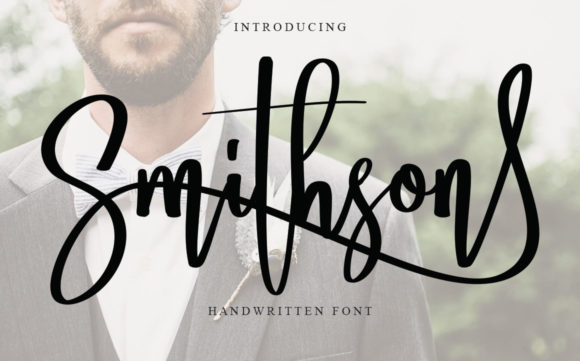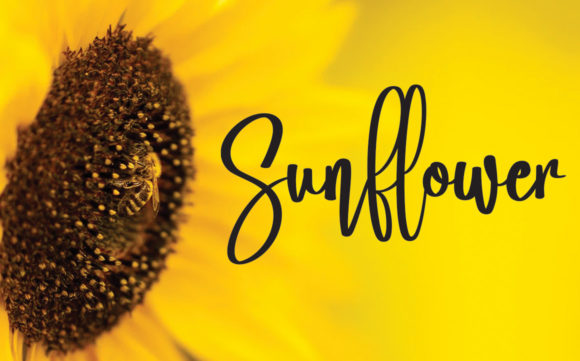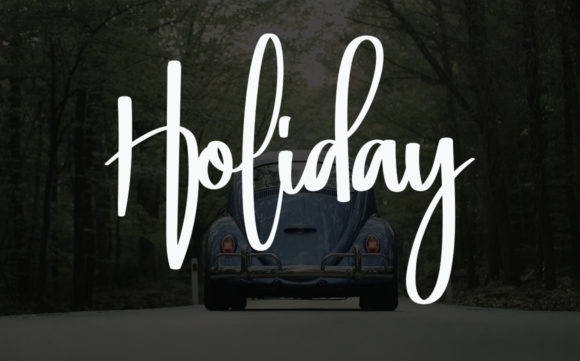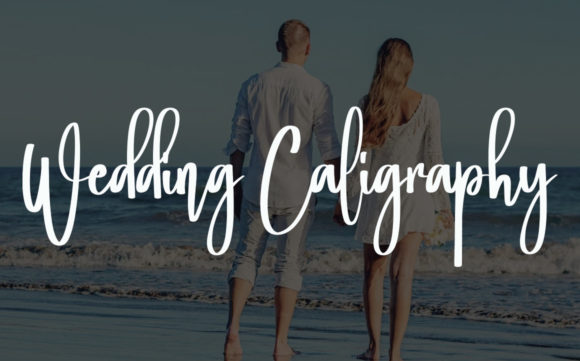
Smithson Font: Elegant Handwritten Script for Wedding Invitations!
About the Smithson Font
Unleash your creativity with Smithson Font, a versatile font perfect for a wide range of applications. Smithson is a beautiful and flowing handwritten font. Use it for wall displays, wedding invitations, social media post logos,
advertisements, product packaging, product designs, labels, photography, watermarks, invitations, stationery, and any project that requires impressive typography.
Smithson Font Usage Examples
Smithson Font Example